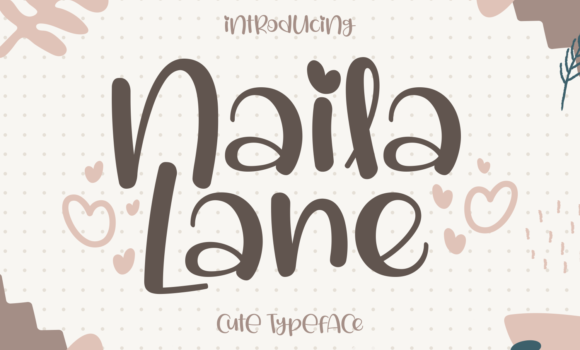
Naila Lane Font – Free Download Introduction to Naila Lane Font Naila Lane is an incredibly cute and jolly handwritten font, featuring well rounded characters. 📸 Preview Gallery 5 images 📌 Product Name Naila Lane Font 👤 Author Dani (7NTypes)